Z-bird mark
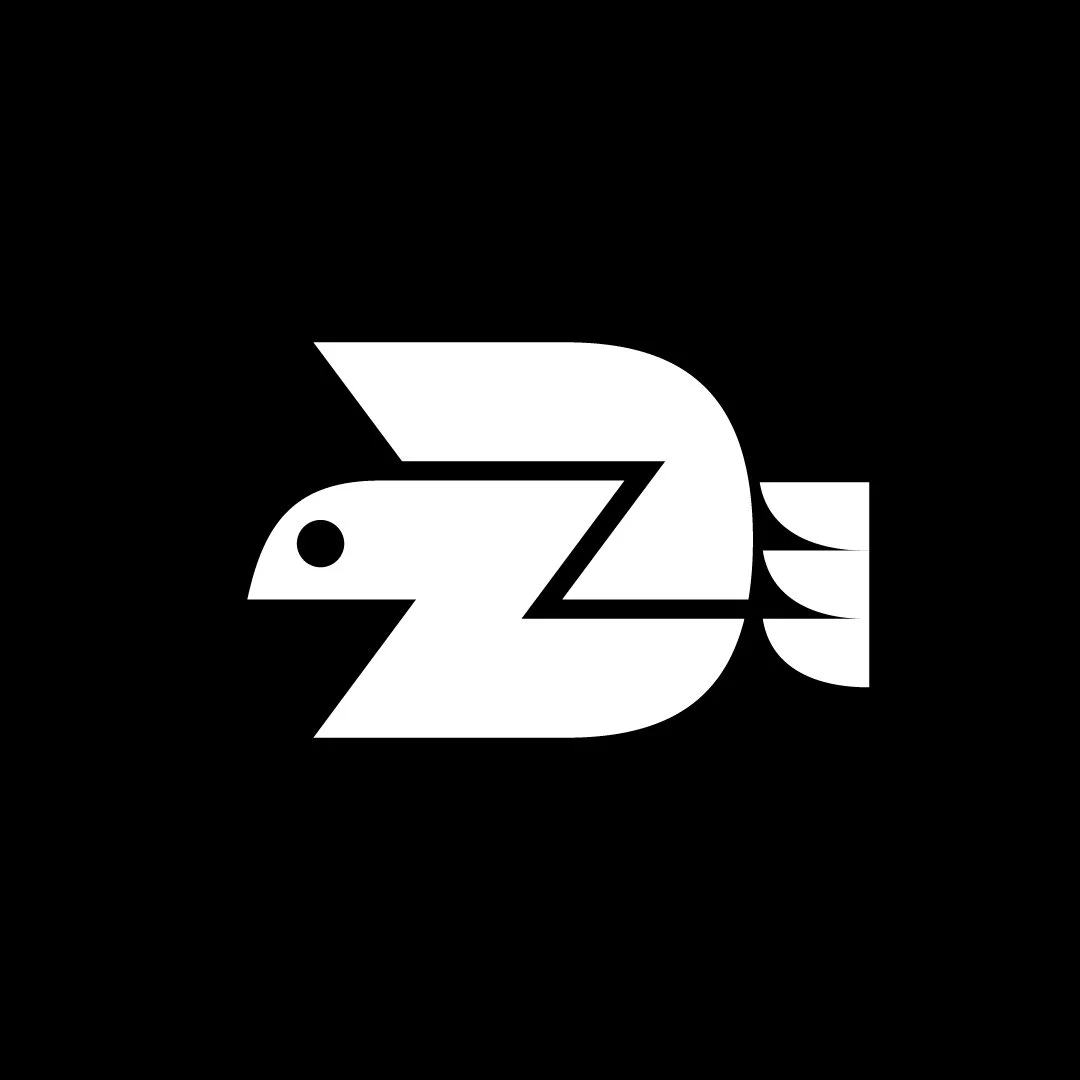
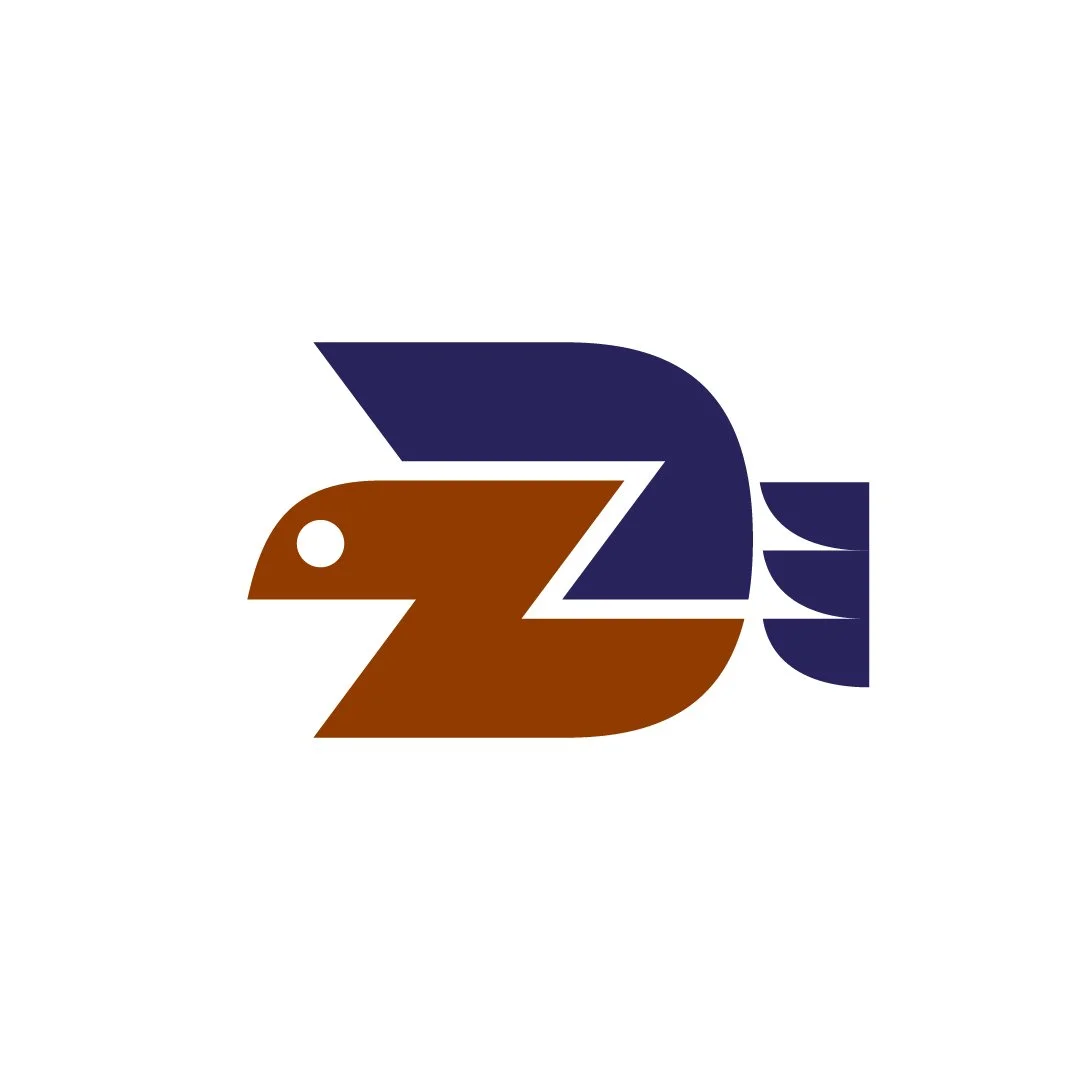
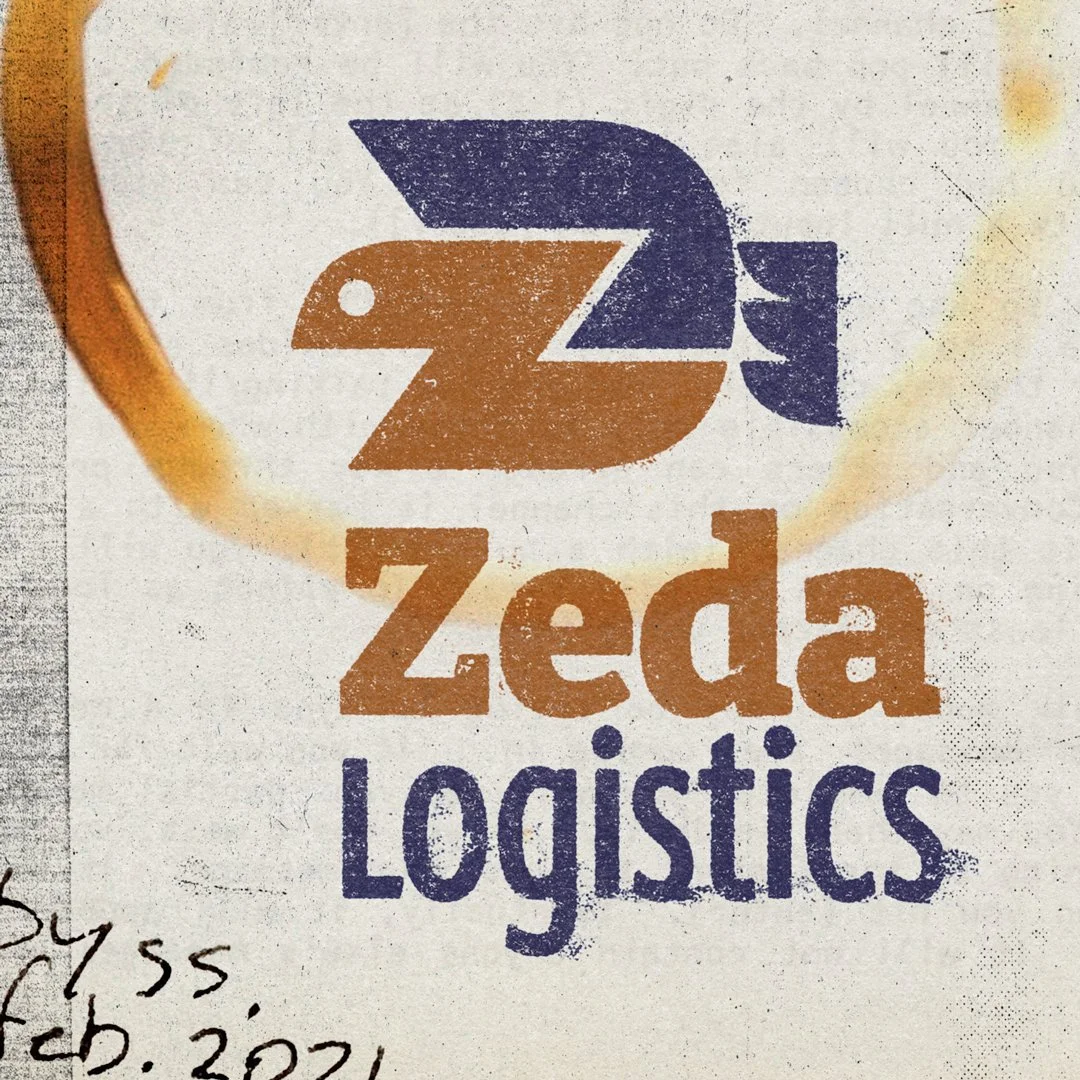
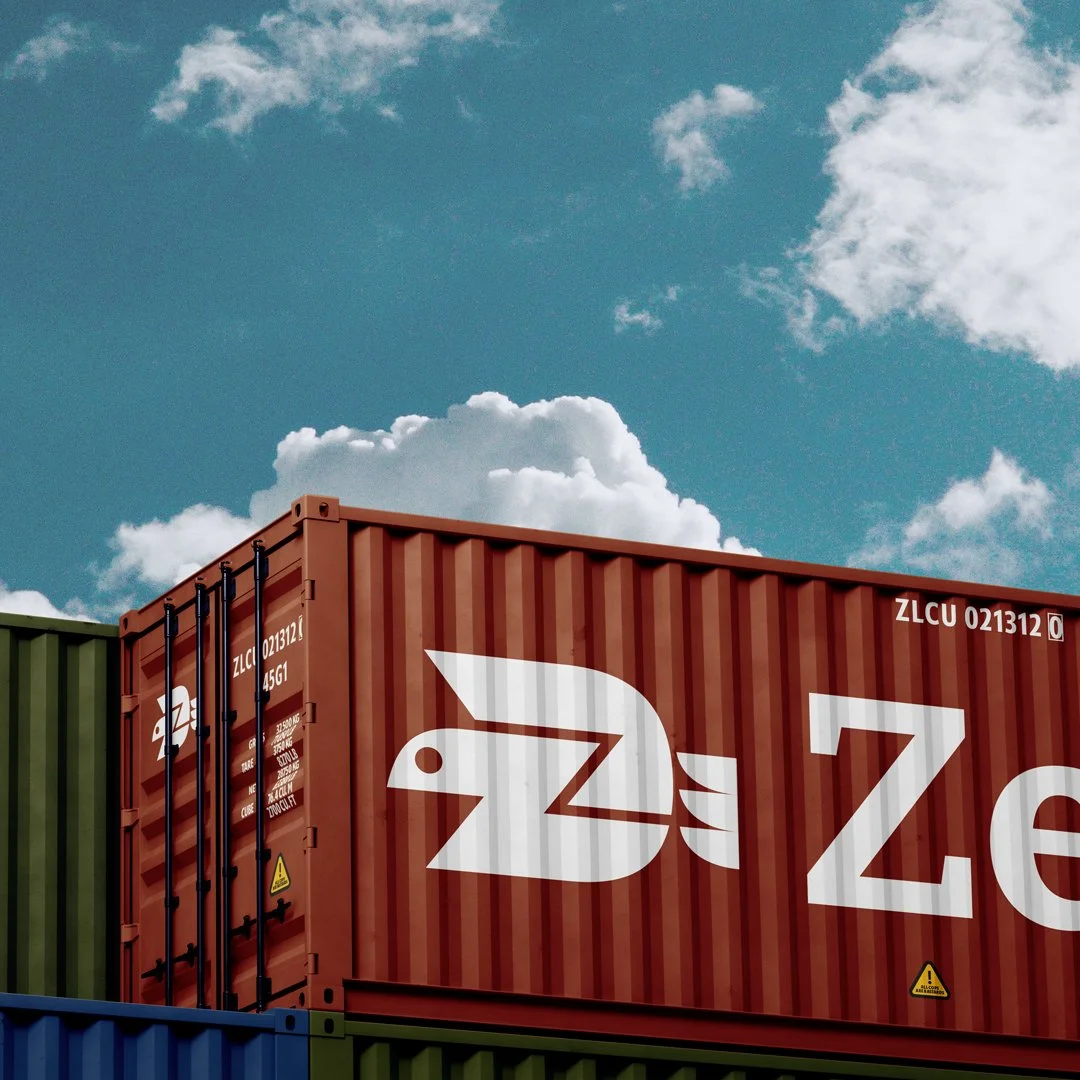
Z-bird mark
A minimalistic depiction of a bird in flight with the letter “Z” blended in. Could fit brands and products in the fields of transportation, logistics, couriers, deliveries, etc.